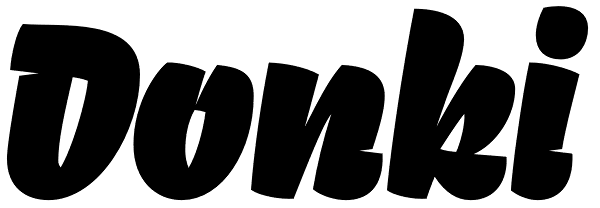
Donki
Donki is a friendly brush-influenced typeface for big sizes. The design is inspired by brush lettering and typefaces such as “Bison” by Julius Kirn from 1938.